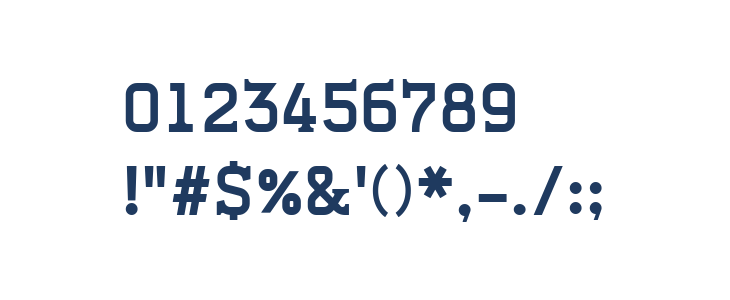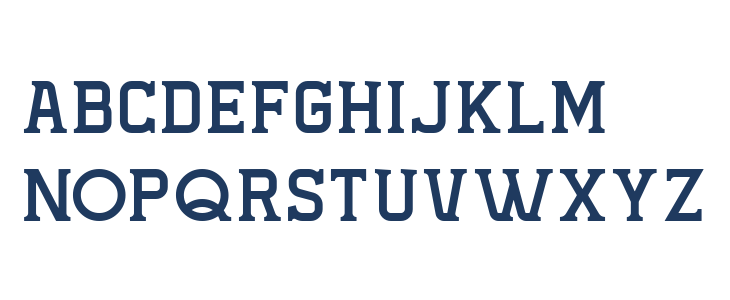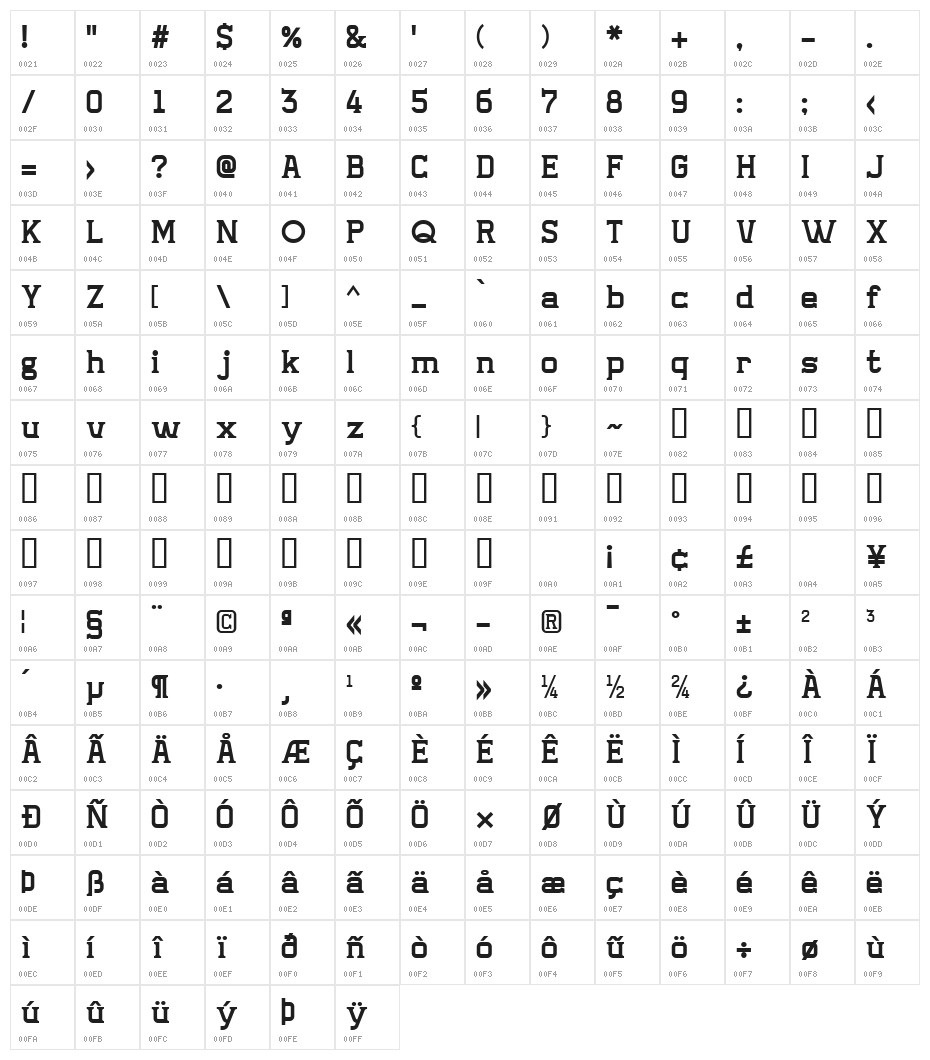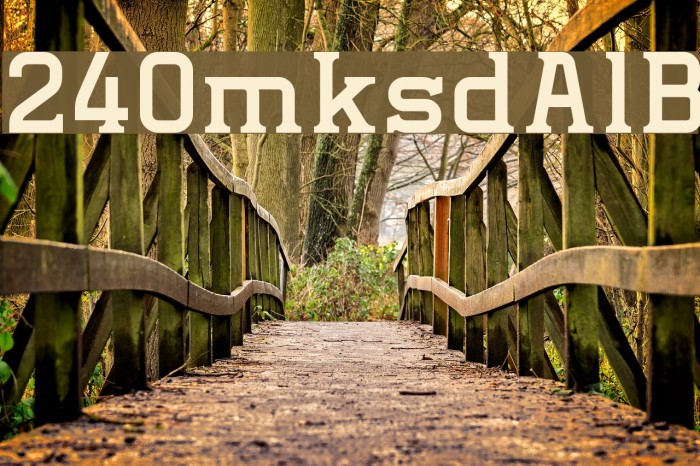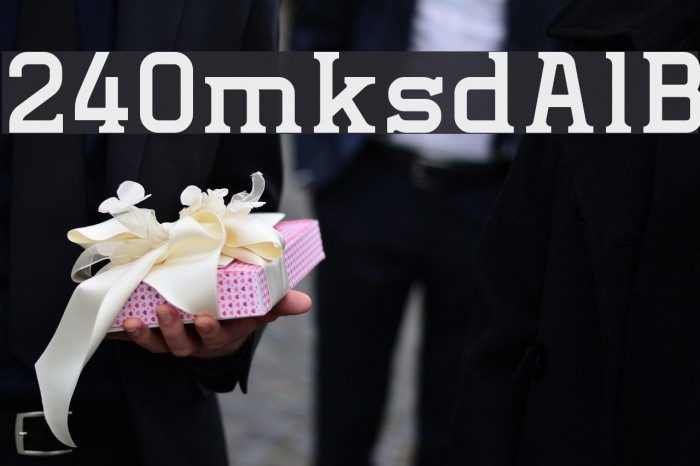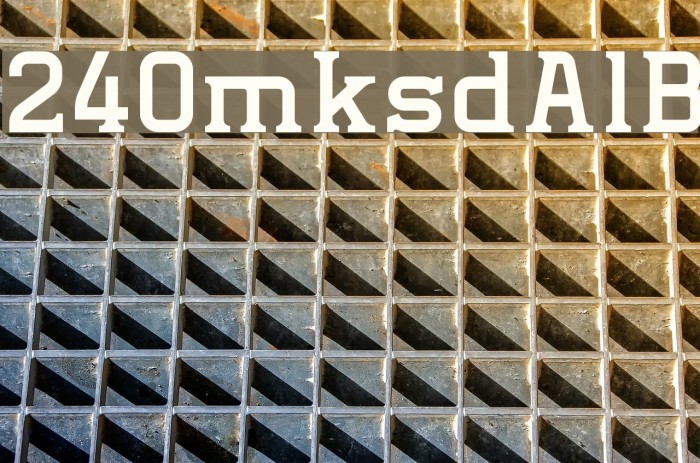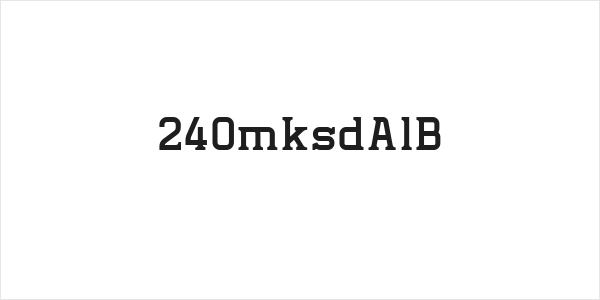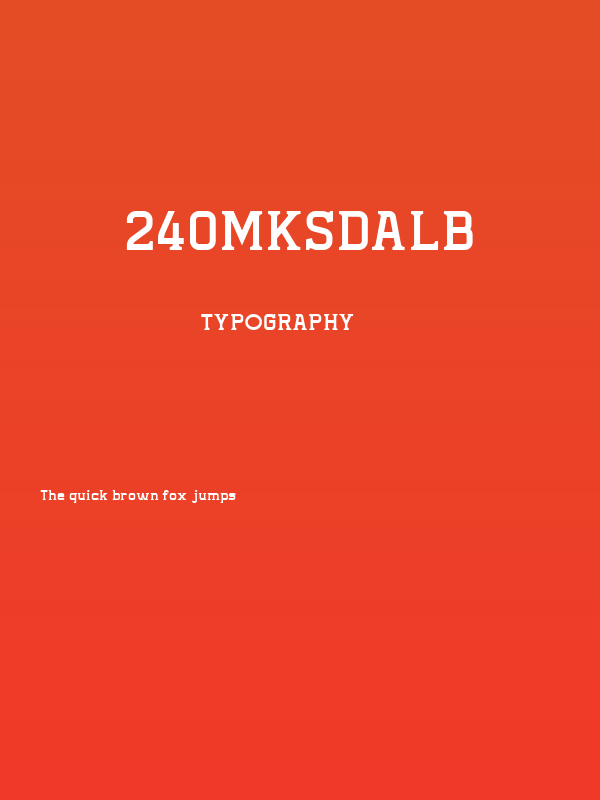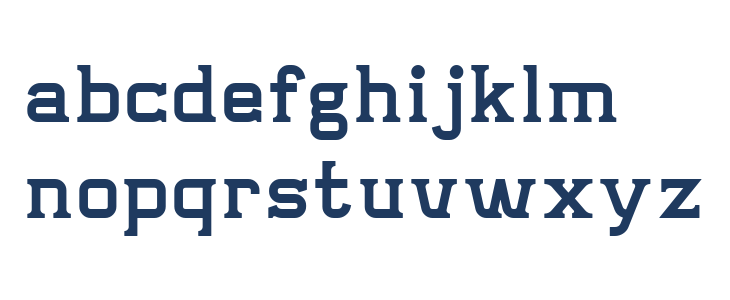
240mksdAlB Font
240mksdAlB Description
This font features a bold and robust design with a slab serif style, characterized by thick, block-like serifs. The uppercase letters are uniform and strong, conveying a sense of stability and confidence. The lowercase letters maintain a consistent weight, providing a harmonious balance with the uppercase. Numerals are clear and easily distinguishable, making them suitable for various applications. The special characters are well-integrated, maintaining the overall aesthetic of the font. This typeface is ideal for projects that require a bold and assertive look, such as headlines, posters, and branding materials.
| Proposed Projects | Ideal for headlines, posters, branding, and any project requiring a bold, assertive look. |